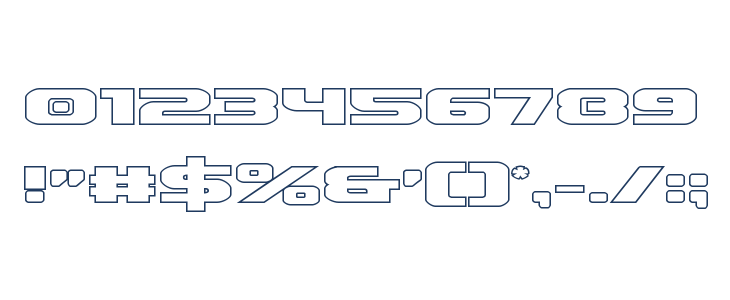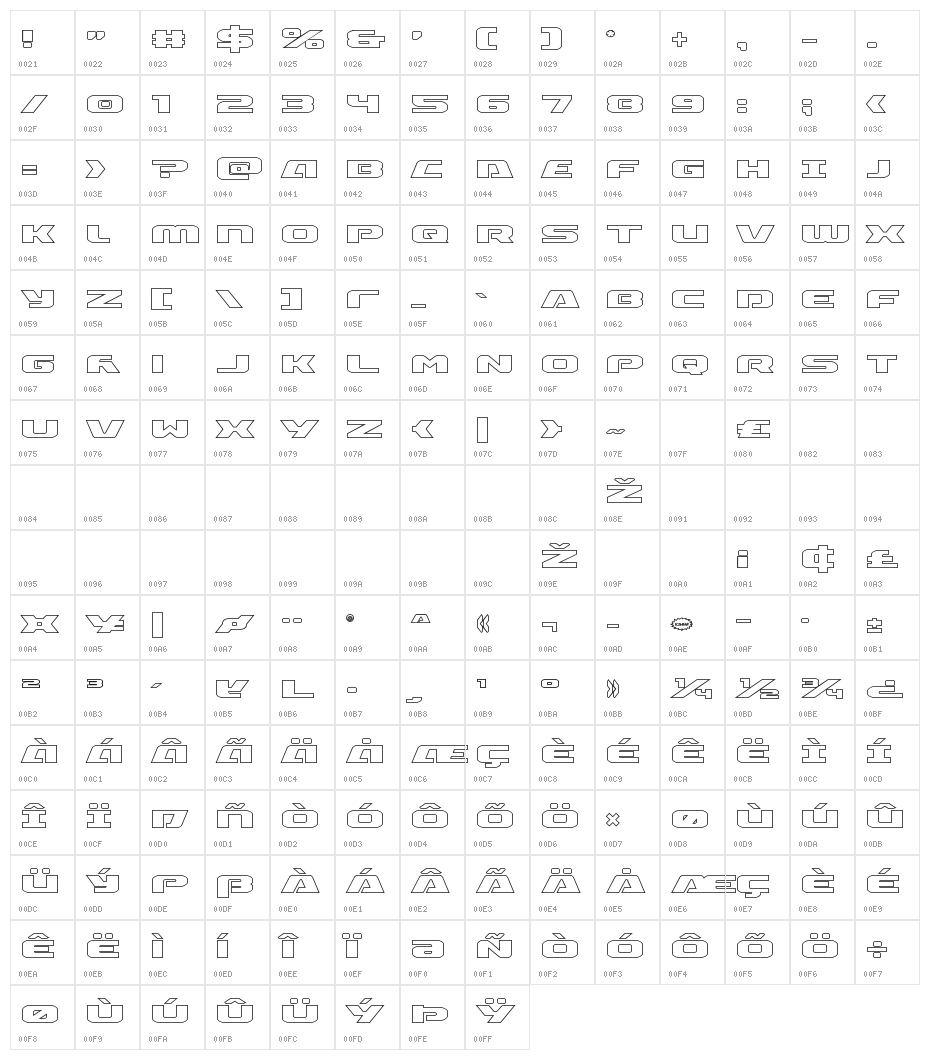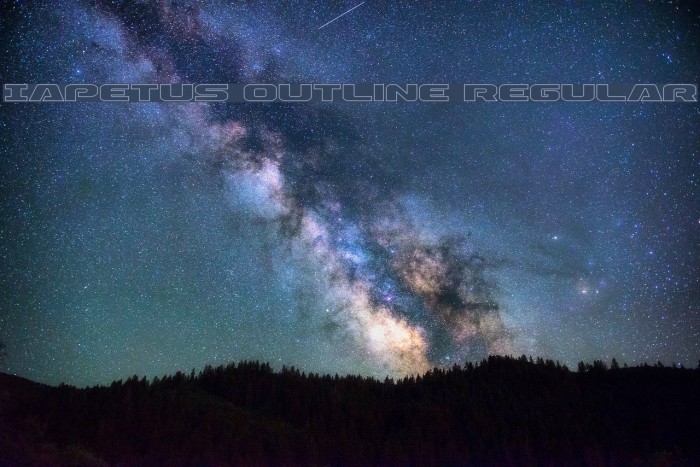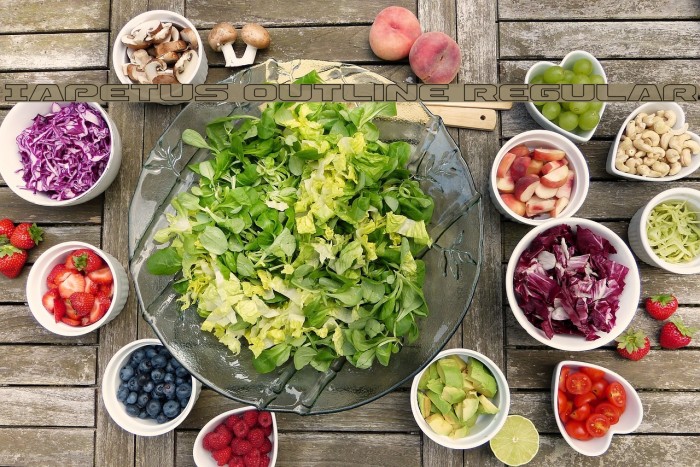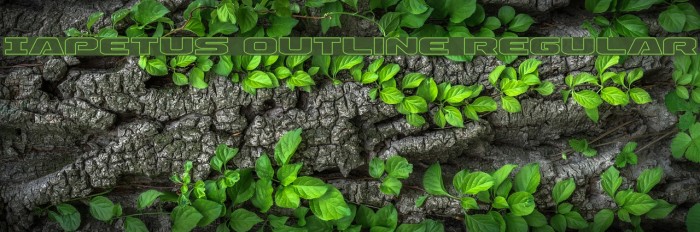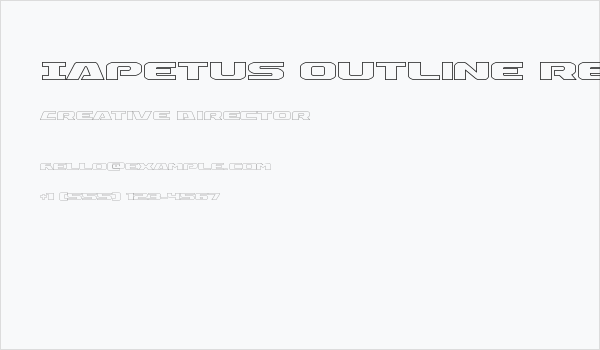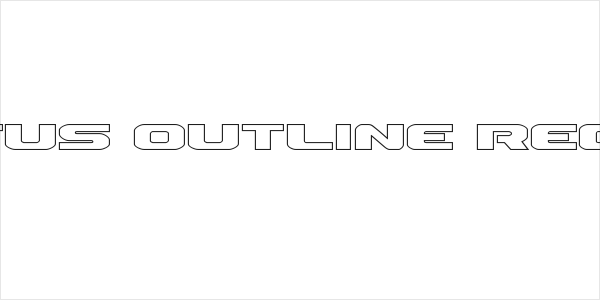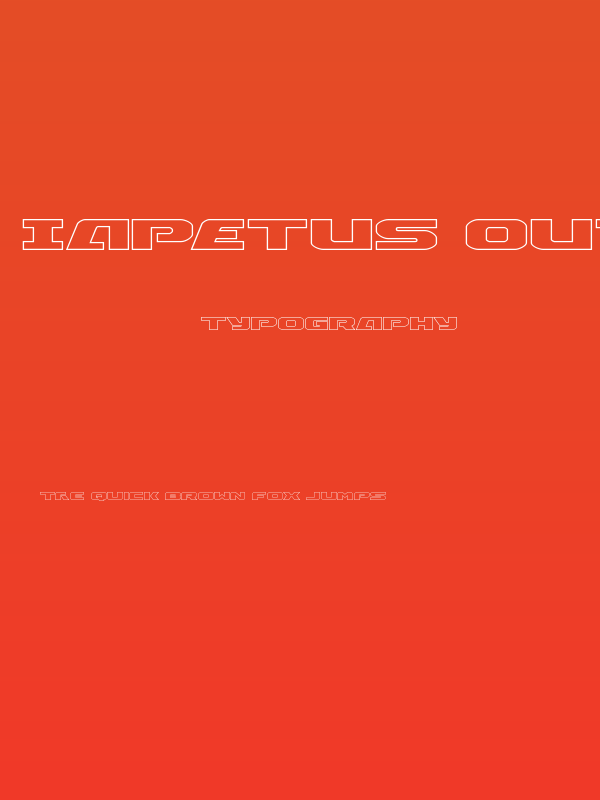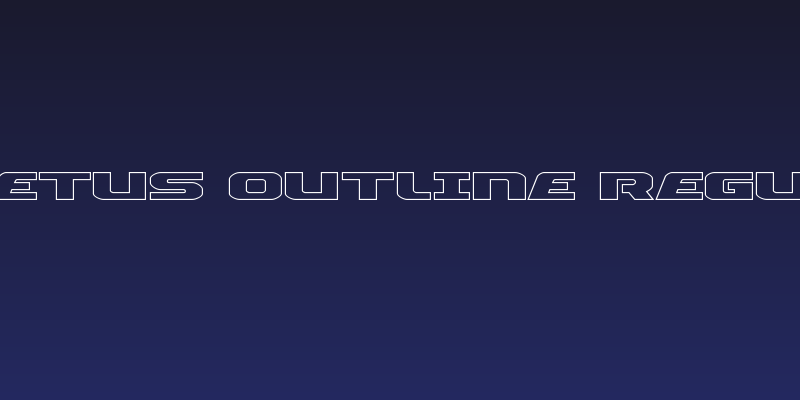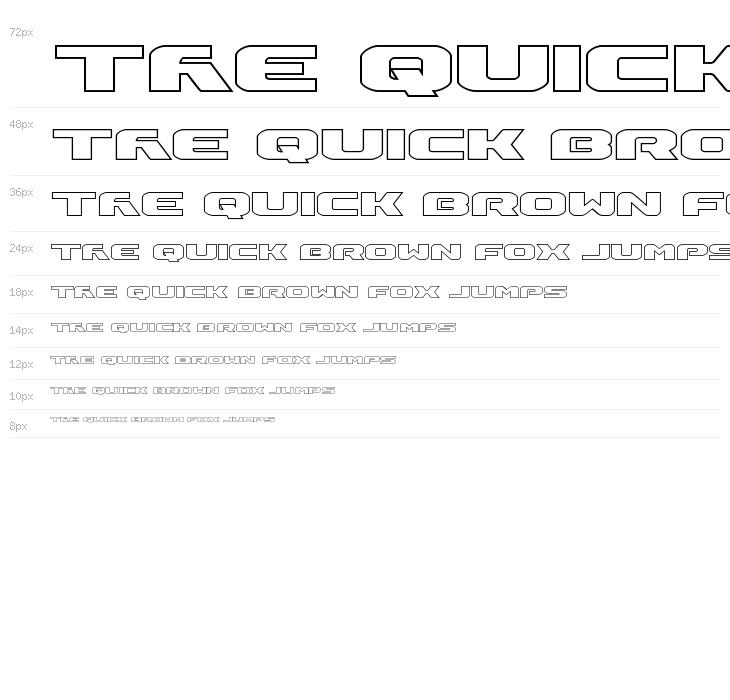
Iapetus Outline Regular Font
Iapetus Outline Regular Description
This font features a bold, geometric outline style that gives it a futuristic and modern appearance. The characters are constructed with clean lines and sharp angles, creating a sense of precision and clarity. The uppercase and lowercase letters maintain a consistent height, contributing to a uniform look across the typeface. The numerals and special characters are designed to match the overall aesthetic, ensuring cohesion throughout. This font's distinct outline design makes it stand out, ideal for projects that require a strong visual impact.
Proposed ProjectsIdeal for branding, posters, and digital media where a strong, modern aesthetic is desired.